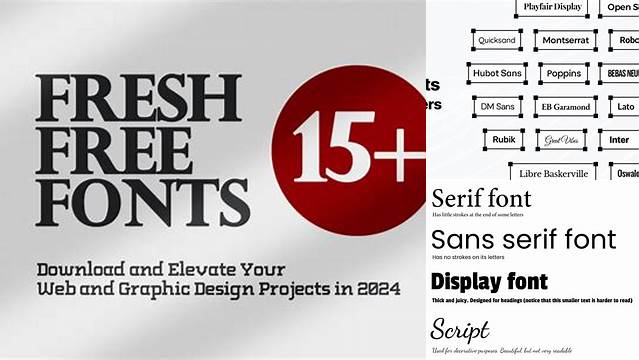
Top Free Website Fonts In 2026: Your Ultimate Guide
Hey there, design enthusiasts! In the ever-evolving landscape of web design, typography remains a cornerstone of visual communication. Choosing the best fonts for websites can make or break a user's experience. Good typography isn't just about aesthetics; it's about readability, brand identity, and accessibility. With the digital world constantly shifting, it's important to stay up-to-date with the top-notch fonts. That's why we're diving deep into the best free website fonts in 2026! Get ready to discover a collection of fonts that are not only visually stunning but also optimized for web use, ensuring a seamless and engaging experience for your visitors.
1. Understanding the Impact of Font Choice on Website Performance
Guys, let's face it, the font you choose for your website has a huge impact on how people experience it. First impressions matter, and typography is a key element in those first few seconds. Choosing the best free website fonts in 2026 can set the tone for your entire website. The right font can enhance readability, guiding visitors through your content effortlessly. When you prioritize user experience, your bounce rates decrease, and your conversion rates can increase. Websites with high-quality fonts often have a professional and trustworthy feel.
1.1 Readability and User Experience: The Dynamic Duo
One of the primary goals of a website is to communicate information clearly. The fonts you choose directly influence this. The best fonts for websites are those that are easy to read on all devices and screen sizes. This includes making sure your fonts are visible on all screen sizes. They must be readable on all platforms from smartphones to large monitors. When a font is difficult to read, users get frustrated. This can lead to visitors quickly leaving your site. Poor readability can seriously hurt user engagement and overall website performance. Think about the context where the fonts are used. Consider the purpose of your website when selecting a font. This involves choosing a font that complements your brand's image and the type of content you offer.
1.2 How Font Selection Influences Website Speed and Efficiency
Website speed is crucial for both user experience and SEO. Heavy fonts can slow down page loading times. This can result in a negative user experience, especially on mobile devices. To avoid this, consider using web fonts. Optimizing fonts is important. Best free website fonts in 2026 are often optimized for web use. This helps to strike a balance between visual appeal and website performance. Choosing a font in the appropriate format (like WOFF or WOFF2) further helps in optimizing loading times. Regularly check your website's speed with tools like Google PageSpeed Insights. This helps to identify any issues with fonts. Optimize fonts to make sure your website runs smoothly and provides a great experience for users.
2. Top Criteria for Choosing the Right Free Website Fonts in 2026
Choosing the right fonts can seem daunting. However, the best fonts for websites are those that satisfy some key criteria. Let's make sure your website looks great and performs well. There are several considerations to keep in mind. Make sure you consider your audience. Also think about your brand's identity and how the font will look on various devices.
2.1 Legibility Across Different Devices and Screen Sizes
Today's users access websites through various devices. So, it's essential that your fonts look good on any device. The best free website fonts in 2026 need to be legible on smartphones, tablets, and desktops. To make sure your fonts are readable on every device, use responsive design techniques. Ensure font sizes adjust proportionally. Also consider the font's weight and style to ensure that it doesn't look too bold or too light on smaller screens. Testing fonts on different devices is essential to make sure they look great. You should also ask other people to see if the font is easily readable.
3. The Rising Stars: Popular Free Website Fonts for 2026
Let's get down to the nitty-gritty. What are the best fonts for websites that you can get without spending a dime? I'm talking about the ones that look amazing and will boost your site's design.
3.1 Exploring Modern and Versatile Font Families
Modern font families offer a wide range of styles and weights. This gives you a ton of creative freedom. When picking the best free website fonts in 2026, focus on those families. They are the most useful and flexible options. Some font families include a variety of weights, from thin to bold. This allows you to create a visual hierarchy. Choose a font family that includes both serif and sans-serif options. This can add variety to your designs. Modern font families frequently include styles. This provides options for headings, body text, and other design aspects. They also offer superior readability and great visual appeal.
3.2 Serif Fonts: Classic Elegance with a Modern Twist
Serif fonts are the cornerstone of great websites. The best fonts for websites often have a timeless quality, making them a perfect choice. These fonts are known for their small strokes. They are found at the end of each letter. They add a touch of sophistication. Many designers find that serif fonts are very readable, making them perfect for body text. They tend to be elegant and give a sense of trust. Many modern serif fonts include variations and weights. This gives you a chance to create a balanced design. Classic serif fonts provide a great sense of tradition. You can use them for headlines, and they can create a distinct personality.
3.3 Sans-Serif Fonts: Clean Lines and Contemporary Appeal
Sans-serif fonts are known for their minimalist aesthetic. They are often the best free website fonts in 2026 for modern websites. These fonts lack the small strokes. They have a clean and modern look. They are ideal for readability, making them great for body text and headings. Sans-serif fonts are flexible and versatile. They are excellent for both large and small sizes. They offer a wide range of styles and weights. This helps in creating visual interest. They often work well for mobile devices. They also enhance the user experience. You can use them to create a sleek, modern design with a touch of simplicity.
4. Advanced Font Selection: Pairing and Customization Techniques
Knowing how to choose fonts is only half the battle. The best free website fonts in 2026 offer great options, but pairing and customization take things up a notch. Let's look at some strategies to optimize the look and functionality of your design.
4.1 The Art of Font Pairing: Harmonizing Typefaces for Visual Harmony
Pairing fonts is one of the most important aspects of a great website design. The best fonts for websites are ones that work well together. They have a nice balance of styles, weights, and characteristics. Choose fonts that complement each other. They should enhance each other's readability and visual appeal. Try pairing a serif font with a sans-serif font. They can create contrast and visual interest. Make sure the fonts you choose have a cohesive brand image. There are many online resources that offer font pairing guides. Testing different combinations of fonts can help find the perfect match. You can create a design that looks cohesive and interesting by finding the right font pairings.
4.2 Font Customization and Web Optimization Tips
Customizing your fonts to fit your website's design is important. The best free website fonts in 2026 are usually customizable. It's important to optimize web fonts to improve performance. Make sure to choose web-optimized font formats. You can use tools to convert fonts. This will ensure compatibility across various browsers. Adjust the font size, spacing, and line height to enhance readability. Make sure the fonts you choose are accessible. Use these techniques to make sure your fonts look and perform their best on your website.
5. Where to Find the Best Free Website Fonts in 2026
Guys, now the big question: Where can you actually find these amazing free fonts? Finding the best free website fonts in 2026 can be a gold mine, but you need to know where to look. Let's explore some trusted sources to get you started.
5.1 Google Fonts: A Comprehensive Library for Web Designers
Google Fonts is the go-to resource for many web designers. This library offers a wide range of fonts for free. It's one of the best free website fonts in 2026. Google Fonts offers a diverse collection of fonts, from classic serifs to modern sans-serifs. It's easy to browse, compare fonts, and download them. They are optimized for web use. It ensures that your website looks great on all devices. The platform is very easy to use. It makes it simple to incorporate the fonts into your website. Google Fonts provides comprehensive documentation. This makes it simple to learn about licensing and usage rights. It also makes it easy to integrate the fonts into your website.
5.2 Other Reputable Free Font Resources and Platforms
Google Fonts is great, but there are other awesome resources, too. When looking for the best free website fonts in 2026, check out platforms like Font Squirrel and DaFont. Font Squirrel provides a curated selection of free fonts. DaFont is a user-friendly platform with a massive collection. Use these resources to discover a wide range of options and new fonts. Read and understand the licensing terms. They are essential to using any font legally. Many font foundries offer free fonts, which gives you access to unique and premium options. Make sure you explore these sources and use their unique design elements.
6. Accessibility and Typography: Making Your Website User-Friendly
Accessibility is super important. If you want your website to be friendly to everyone, you need to make your typography accessible. Choosing the best fonts for websites goes hand-in-hand with providing a great user experience for all visitors.
6.1 Ensuring Readability for Users with Visual Impairments
For users with visual impairments, clear typography is a must. The best free website fonts in 2026 should be highly legible. Choose fonts with clear letterforms and distinctive characters. You should also select font sizes that are big enough for easy reading. When creating a website, make sure it complies with accessibility standards. Always test your website using screen readers. This makes sure that users with visual impairments have a great experience. Try using high-contrast color schemes to improve readability. Focus on accessibility, and you'll provide an inclusive experience.
6.2 Best Practices for Font Sizes, Line Spacing, and Color Contrast
Great typography is about more than just choosing a font. The best fonts for websites take font sizes and line spacing into consideration. Use font sizes that are easy to read on various devices. Add enough line spacing to improve readability. Make sure your website complies with accessibility guidelines for color contrast. This ensures that text and background colors contrast properly. Test your website across multiple devices to make sure everything looks perfect. Always focus on accessibility. This makes your website user-friendly for everyone.
7. Future Trends in Web Typography: What to Expect in 2026 and Beyond
Web design is always evolving. Let's look ahead and see what's coming up in web typography. With so many options, how do you choose the best free website fonts in 2026? What's the next big thing in web design?
7.1 Emerging Font Styles and Design Innovations
The future of web typography is exciting. New fonts are emerging with unique designs. When it comes to the best fonts for websites, think about how technology is shaping web design. Variable fonts are set to become more popular. They provide greater flexibility. This can help with customizing the font's weight, width, and slant. Expect to see more interactive and dynamic typography. It responds to user actions. Also, expect to see more fonts designed with web accessibility in mind. Make sure your website has a fresh design, and keep up with the latest trends.
7.2 The Role of Artificial Intelligence in Typography
Artificial intelligence (AI) is changing the world, and it's influencing web design, too. AI is changing the way we create designs. When deciding what the best free website fonts in 2026 are, you'll need to consider AI. AI can help choose the best fonts. It can help optimize the typography. It will change how we think about creating websites. AI-powered design tools will help automate the selection of fonts. This will make it simpler for designers to produce more efficient and effective website designs. Expect to see AI play a more important role in the future of typography.
8. Maintaining and Updating Your Website Fonts: A Practical Guide
Once you choose your fonts, it's important to maintain and update them. Let's see how you can manage your fonts and keep them current. This helps in maintaining a great website experience. When deciding what the best fonts for websites are, always think about maintaining them.
8.1 Regular Font Audits and Performance Checks
Regularly checking your website's font performance is essential. You should do this to make sure your website stays optimized. Start by conducting font audits. Review your website's typography to make sure the fonts align with your brand. Make sure your fonts are still readable. Pay attention to your website's speed and how it loads your fonts. Perform regular performance checks. You can use tools like Google PageSpeed Insights to identify issues and make adjustments. Always stay current and make sure your fonts are up-to-date. This helps in maintaining a seamless user experience.
8.2 Keeping Your Font Library Organized and Updated
Keeping your font library organized helps in efficient design. Make sure to organize your font library with ease of access. Always keep your font files in a central location and use consistent naming conventions. Make sure to update your fonts regularly. As technology changes, you may need to make adjustments. You may also need to update font files to make sure they're always compatible. By keeping your font library organized, you can make sure your website looks great. This can help improve its performance.
9. The Intersection of Branding and Typography: Creating a Consistent Identity
Typography is essential for brand recognition. The best fonts for websites are those that reinforce a brand's identity. Let's explore the importance of font choices in branding.
9.1 Using Typography to Communicate Brand Values and Personality
Fonts are more than just words on a page. When designing a website, think about the personality and values of your brand. Think about how your font choices reinforce your brand's message. Select fonts that align with your brand's tone. This can include a classic, modern, or playful style. Use your fonts consistently throughout your website. The goal is to create a cohesive brand image. By choosing the right fonts, you can convey your brand's values. This can help create a memorable brand experience.
9.2 Creating a Visual Brand Guide for Font Usage
A visual brand guide can help ensure consistency. It will define how your fonts should be used. It can help you manage your fonts. When considering the best free website fonts in 2026, creating a brand guide can be helpful. Create a brand guide and clearly identify your primary and secondary fonts. Include rules for font sizes, weights, and styles to ensure a consistent look. Provide examples of how to use your fonts. This can help in creating a unified brand presence. Make sure the brand guide can be used by everyone. This ensures consistent and effective brand communication.
10. Tips for Integrating Free Fonts into Your Website Design
Integrating free fonts into your website design requires care. The best free website fonts in 2026 may seem like a simple thing, but there are some tricks you should know.
10.1 Web Font Formats: Understanding WOFF, WOFF2, and Other Formats
Understanding web font formats helps optimize your website. Make sure the fonts you choose are compatible. The best free website fonts in 2026 should be available in web-friendly formats like WOFF and WOFF2. WOFF and WOFF2 are designed for web use. They support compression. This makes them load faster and reduce file sizes. Use WOFF2 if possible. It provides better compression and performance. Make sure your font files are served from your server. Use these guidelines to ensure your fonts load quickly and provide a great experience.
10.2 Implementing Fonts Using CSS: A Step-by-Step Guide
Adding fonts with CSS is a simple process. Start by including the font files in your website's directory. Use the @font-face rule in your CSS file. Define the font's name, source, and format. Apply the font to HTML elements using the font-family property. Test your website on multiple devices and browsers. By following these steps, you can integrate the best fonts for websites effectively.
11. Avoiding Common Mistakes in Font Selection and Implementation
Avoiding mistakes is important. The best free website fonts in 2026 may seem straightforward, but you'll need to be careful.
11.1 Overusing Fonts and Cluttering Your Design
Overusing fonts can create a confusing design. Resist the temptation to use too many fonts on your website. Limit your font usage to a few core fonts. Make sure your font choices are consistent. Try using a maximum of two or three font families. Avoid using fonts that clash with each other. Simplicity can create a professional and visually appealing design. Focus on quality, and you can create a cohesive design.
11.2 Ignoring Font Licensing and Legal Considerations
Make sure you follow the legal rules and guidelines. When you're seeking out the best free website fonts in 2026, make sure you know the licensing terms. Understand the usage rights associated with the fonts. Read the license agreements carefully. Ensure that you can use the fonts for commercial purposes. By following the rules, you can protect yourself from legal problems. Make sure your website design is legally compliant.
12. Resources and Tools for Finding and Managing Free Website Fonts
Let's get to the resources that can assist you. These tools will help you in your hunt for the best free website fonts in 2026.
12.1 Online Font Libraries and Directories: A Comprehensive List
Online font libraries can help you find great options. There are many sources to choose from. When looking for the best free website fonts in 2026, explore these resources. Google Fonts is a fantastic starting point. Check out Font Squirrel and DaFont. They provide a wide range of options. Explore the licensing information and ensure compliance. Using these online resources will assist you in discovering amazing fonts. You can use them for your website.
12.2 Font Management Software and Browser Extensions
Font management software will assist you in organizing your fonts. When looking for the best free website fonts in 2026, consider using a font management tool. These tools help manage and organize fonts. There are some helpful browser extensions that you can use. They assist in identifying fonts on any website. By using these resources, you can streamline the font selection. They can also help you test and maintain your website design.
13. Case Studies: Websites with Exceptional Typography in 2026
Let's look at some websites that do a great job with typography. Studying these examples can provide inspiration. These websites show how to use the best fonts for websites effectively.
13.1 Analyzing Successful Websites: Font Pairings and Design Choices
Analyze successful websites. Check out what they do with typography. When researching the best free website fonts in 2026, try to analyze the design choices. Pay attention to how the fonts work. See what works and what doesn't. Check how they use font pairings to create contrast. Note how the fonts are incorporated with the layout. By studying successful websites, you can find out how to use typography more effectively. Learn about their techniques. Then, you can apply the techniques to your own website.
13.2 Lessons Learned: Implementing Best Practices for Your Own Site
Learn from the success of others. You can learn to choose and implement the best free website fonts in 2026. Review the best practices. Make sure to check the font pairings and design choices. Adopt these ideas for your website. You can create an attractive, user-friendly website. Use these lessons to build your website. You can implement these practices to make your website better.
14. The Future of Free Fonts: Innovations and Developments to Watch
What's next for the world of free fonts? Web design is evolving. Let's explore what's coming. Knowing about upcoming developments helps you choose the best free website fonts in 2026.
14.1 The Rise of Variable Fonts and Dynamic Typography
Variable fonts are gaining popularity. They can transform the field of web design. These fonts are very flexible. When you are looking for the best free website fonts in 2026, check out variable fonts. These fonts allow you to customize your font. You can change the weight and style of your fonts. Dynamic typography is evolving. It reacts to user actions. This can improve the user experience. Keep an eye on how these technologies develop. You can take advantage of new web design capabilities.
14.2 AI-Powered Font Design and Recommendation Systems
AI is revolutionizing web design. AI has a major role in the world of typography. AI is helping designers choose fonts. When you're looking for the best free website fonts in 2026, consider AI tools. They can assist you in the font selection process. Expect AI-powered recommendation systems. These systems suggest fonts that match your brand. These innovations will change how designers select fonts. They'll help make the design process more efficient.
15. Optimizing Fonts for Search Engines (SEO) and Web Performance
Optimizing fonts has a positive impact on SEO and web performance. Let's learn how to optimize the best free website fonts in 2026.
15.1 Font Loading Strategies and Performance Optimization
Optimizing font loading is important for web performance. Check the font loading strategy to ensure efficient loading. Use tools like preload to load fonts. When you're selecting the best free website fonts in 2026, make sure to optimize font loading. Minimize the file size and make sure they are web-friendly. Always prioritize above-the-fold content to enhance user experience. If you optimize your fonts, your website performance will improve.
15.2 The Impact of Typography on Website SEO and Rankings
Typography affects your website's SEO and rankings. The best fonts for websites can improve readability. It can also improve your website's user experience. Readable fonts help improve user engagement. This boosts your SEO and search rankings. Prioritize readability. Choose appropriate font sizes. You can optimize your website's SEO performance.
16. Beyond the Basics: Advanced Typography Techniques
Want to make your typography stand out? Let's dig deeper and try out advanced techniques. It's important to consider the best fonts for websites.
16.1 Creating Visual Hierarchy with Typography
Typography can establish a clear visual hierarchy. Use different font sizes and weights. When selecting the best free website fonts in 2026, use different styles to differentiate sections. Use your typography to make your content readable. Proper use of typography helps guide readers through your website.
16.2 Using Typography for Interactive and Dynamic Content
Typography can be interactive and dynamic. You can use it to enhance the user experience. Use animations to add interest to the fonts. When you're searching for the best free website fonts in 2026, consider using them for animated content. Interactive content will increase user engagement. Incorporate dynamic typography to take your website to the next level.
17. Typography and Branding: Building a Unique Visual Identity
Typography can help define a brand's visual identity. The best free website fonts in 2026 can make a huge difference.
17.1 Aligning Font Choices with Brand Personality
Match the font choices with the brand's personality. Choose fonts that will help convey the message. You need to align the font choices with the brand's goals. Make sure the typography matches the brand's personality. The best fonts for websites must communicate your brand's identity.
17.2 Developing a Consistent Typography Style Guide
Develop a style guide to ensure consistency. Define the font pairings, sizes, and styles. The best free website fonts in 2026 must be used consistently. A well-defined guide ensures a consistent look. Consistency improves brand recognition.
18. Typography and User Experience (UX): Enhancing Website Usability
Typography plays a huge role in UX. The best free website fonts in 2026 are those that enhance usability.
18.1 Improving Readability for Better User Engagement
Readability is critical to UX. Ensure easy readability. The best free website fonts in 2026 should be readable. Choose fonts and styles that enhance readability. Great typography will improve user engagement.
18.2 Using Typography to Guide the User's Eye
Use typography to guide the user's eye. Use font sizes, styles, and weights to create a hierarchy. The best free website fonts in 2026 should lead the users. Use typography to show the key content on your website.
19. Mobile Typography: Best Practices for Responsive Design
Mobile typography is very important. The best fonts for websites must look good on all devices.
19.1 Optimizing Fonts for Different Screen Sizes
Optimize fonts for different screen sizes. The best free website fonts in 2026 should look good on every device. Use responsive design to scale font sizes. Test your website on different devices.
19.2 Choosing Mobile-Friendly Fonts and Typography Techniques
Choose mobile-friendly fonts and techniques. The best free website fonts in 2026 should be legible on all devices. Use techniques to improve mobile typography. Choose easy-to-read fonts.
20. Typography and Color: Creating Effective Color Combinations
Typography works well with color. The best fonts for websites can make your website look amazing.
20.1 Choosing Color Palettes that Complement Your Fonts
Choose color palettes. Select colors that complement your fonts. The best free website fonts in 2026 must work with the color scheme. Combine colors with the fonts.
20.2 Ensuring Sufficient Contrast for Readability
Ensure sufficient contrast for readability. Use contrast to improve readability. The best free website fonts in 2026 must have great contrast. Test your website for contrast.
21. Typography and Website Layout: Designing for Visual Appeal
Typography affects website layout. The best fonts for websites can make the website look amazing.
21.1 Using Typography to Create a Balanced Layout
Use typography to create a balanced layout. The best free website fonts in 2026 can create balance. Use the fonts with layout. Use the typography with a layout.
21.2 Integrating Typography with Images and Other Visual Elements
Use typography with images. Combine typography with visual elements. The best free website fonts in 2026 must work well. Integrate typography with images.
22. Typography and Cultural Considerations: Designing for a Global Audience
Think about cultural considerations. The best fonts for websites can help with this.
22.1 Choosing Fonts that Support Different Languages
Choose fonts that support various languages. The best free website fonts in 2026 need to support languages. Select fonts that support various languages.
22.2 Understanding Cultural Preferences in Typography
Understand cultural preferences. Know the cultural preferences. The best free website fonts in 2026 are those that are culturally sensitive. Understand the cultural preferences.
23. Troubleshooting Typography Issues: Common Problems and Solutions
There can be typography issues. The best fonts for websites need to work well.
23.1 Resolving Font Rendering Issues and Browser Incompatibilities
Resolve font rendering issues. Fix browser incompatibilities. The best free website fonts in 2026 must look good on every browser. Troubleshoot common issues.
23.2 Addressing Font Display Problems on Different Devices
Fix font display problems. Fix problems on different devices. The best free website fonts in 2026 must show properly. Troubleshoot font problems.
24. The Role of Typography in Content Marketing: Enhancing Storytelling
Typography improves content marketing. The best fonts for websites will enhance storytelling.
24.1 Using Typography to Engage and Captivate Readers
Use typography to engage readers. Use the fonts to captivate the readers. The best free website fonts in 2026 can engage readers. Enhance storytelling with typography.
24.2 Creating a Compelling Visual Narrative with Fonts
Create a visual narrative. The best free website fonts in 2026 will create the narrative. Use the fonts. Use the typography to create a story.
25. Typography and E-commerce: Improving Conversion Rates
Typography affects e-commerce. The best fonts for websites are important for e-commerce.
25.1 Using Typography to Highlight Calls-to-Action (CTAs)
Use typography to highlight CTAs. The best free website fonts in 2026 can highlight the CTAs. Use typography to boost conversions. Choose the best typography.
25.2 Enhancing Product Descriptions and Website Navigation with Typography
Enhance product descriptions. Enhance website navigation. The best free website fonts in 2026 are used for website navigation. Use typography to boost your e-commerce.
26. Typography in Web Design Trends: Adapting to Change
Web design trends keep changing. The best fonts for websites will change with these trends.
26.1 Staying Updated with the Latest Typography Styles and Aesthetics
Keep up with the latest trends. The best free website fonts in 2026 must fit the trends. The typography must fit the trends. Stay current with web design trends.
26.2 Adapting Your Typography Choices to Current Design Practices
Adapt your choices. Adapt the design practices. The best free website fonts in 2026 will keep changing. Adapt the typography for the latest trends.
27. Typography and the Future of Web Design: Predicting What's Next
The future of web design is here. The best fonts for websites will keep evolving.
27.1 The Evolution of Web Typography: Innovations to Watch For
See the evolution of web typography. Know about the future innovations. The best free website fonts in 2026 are essential. Watch for the future innovations.
27.2 The Impact of New Technologies on Typography Design
New technologies are here. The best free website fonts in 2026 must change. See the impact of new technologies. These technologies will impact your website design.
28. Sustainable Typography: Environmentally Conscious Design
Think about sustainable design. The best fonts for websites can help with this.
28.1 Choosing Eco-Friendly Fonts and Design Practices
Choose eco-friendly fonts. Use sustainable practices. The best free website fonts in 2026 should be eco-friendly. Choose the best fonts.
28.2 Reducing Digital Carbon Footprint with Typography Choices
Reduce the digital carbon footprint. Use the right fonts. The best free website fonts in 2026 can help. Choose the right fonts for sustainability.
29. The Psychology of Typography: Evoking Emotions and Responses
Typography involves psychology. The best fonts for websites can evoke emotions.
29.1 Understanding How Fonts Influence User Emotions and Perceptions
Understand the emotions. Fonts will affect the users' perceptions. The best free website fonts in 2026 can influence user emotions. Know the psychology of fonts.
29.2 Using Typography to Create a Specific Brand Experience
Use typography to create an experience. The best free website fonts in 2026 will help. Create a brand experience. You can craft a specific brand experience.
30. Typography and Personalization: Tailoring Fonts to User Preferences
Personalization is crucial. The best fonts for websites can be tailored to the users.
30.1 Implementing Font Customization Options for Users
Add font customization options. Allow users to personalize the fonts. The best free website fonts in 2026 will make this possible. Implement the font customization.
30.2 Creating a User-Centric Typography Experience
Create a user-centric experience. The best free website fonts in 2026 can make the experience better. Focus on the user. Make the fonts user-centric.